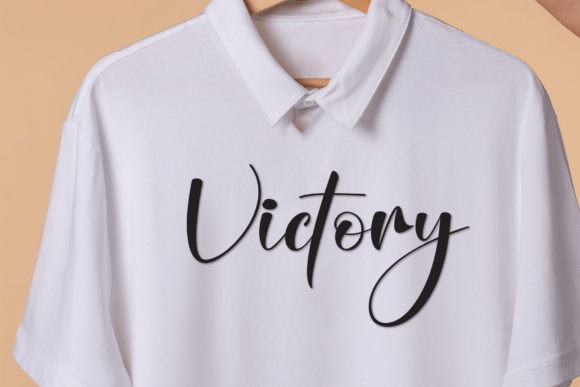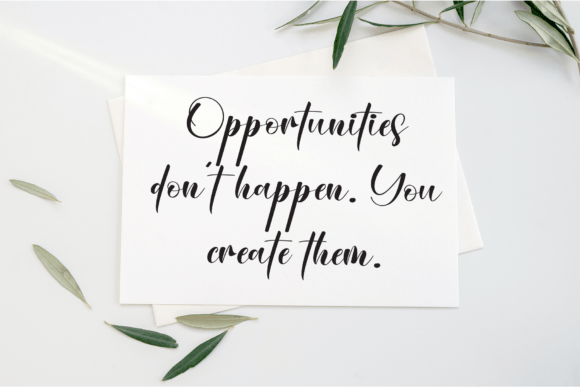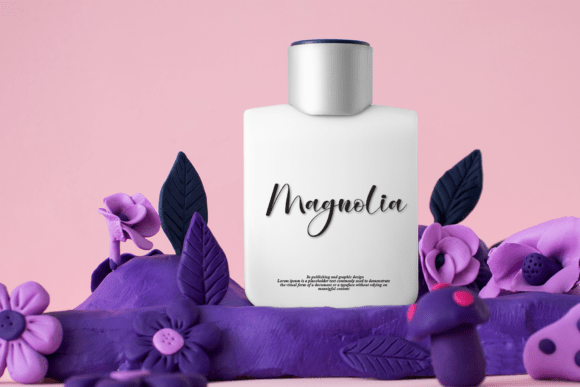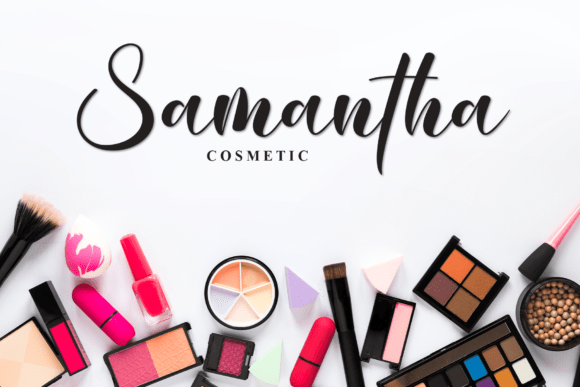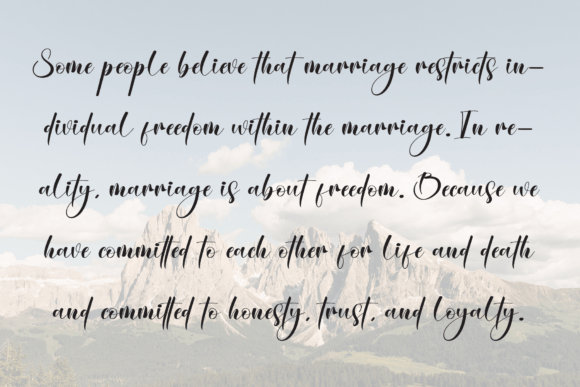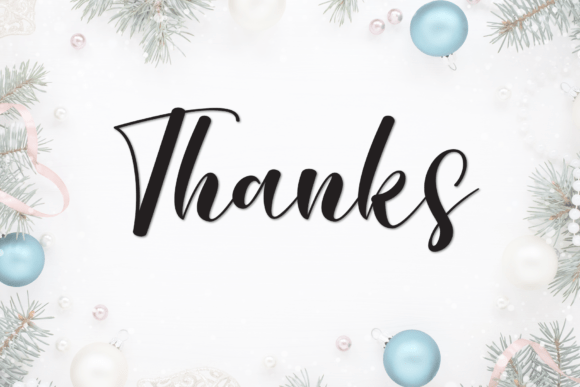
Unleash Your Creativity with the Magic of Christmas Wonderful Font
Do you ever get that spark of inspiration in the middle of a busy day, and all you can think about is bringing it to life? Maybe it’s a festive holiday project, a special gift, or a seasonal social media post. Whatever it is, you know you need the perfect font to make it truly unforgettable. That’s where the enchanting Christmas Wonderful Font comes in – a beautifully crafted script font that adds a touch of elegance to any design.
Whether you’re a seasoned designer or a DIY enthusiast, Christmas Wonderful Font is a valuable addition to your creative toolkit. Its versatility makes it perfect for a wide range of projects, from Instagram posts and social media graphics to calligraphy scripts and handmade cards. With this magical font, you’ll be able to turn your ideas into stunning pieces of art that capture the essence of the holiday season.
Christmas Wonderful Font Key Features
- Font Family: Christmas Wonderful Font is a beautiful and festive font, ideal for holiday-themed projects.
- Unique Characteristics: Features intricate, hand-drawn illustrations of snowflakes, holly, and other winter elements, adding a touch of magic to designs.
Designer Review: Christmas Wonderful Font
I recently had the chance to work with the Christmas Wonderful Font, and here’s my honest take on it.
This font is a perfect addition to any holiday-themed project. Its whimsical design and festive feel immediately evoke the magic of Christmas. The font is well-structured, with clear lines and a consistent style throughout.
- Easy to read, even in smaller font sizes
- Perfect for headings, titles, and short paragraphs
- Includes a range of punctuation and special characters
While the font is great for holiday-themed projects, it may not be suitable for more formal or professional work. Additionally, the font is only available in a limited range of weights, which may limit its versatility.
- No italic or bold weights available
- No extended character set (e.g. Cyrillic, Greek, etc.)
The Christmas Wonderful Font is a fun and festive addition to any project. While it may have some limitations, its unique design and clear structure make it a great choice for holiday-themed work. Just be aware of its limitations and use it accordingly.
Some popular use cases for the Christmas Wonderful Font include:
- Holiday greeting cards and invitations
- Festive social media graphics and posts
- Christmas party decorations and signage
- Winter-themed blog posts and articles
Remember to experiment with different font sizes, colors, and styles to get the most out of the Christmas Wonderful Font.
Alternatives to Christmas Wonderful Font
Creamy Script
Creamy Script is a beautiful, elegant script font that’s perfect for adding a touch of sophistication to your designs. It’s great for use in invitations, greeting cards, and other festive materials. Compared to Christmas Wonderful Font, Creamy Script has a more subtle, refined feel that works well in a variety of contexts.
Great Vibes is a lively, cursive script font that’s ideal for conveying a sense of joy and celebration. It’s perfect for use in social media graphics, posters, and other promotional materials. While it’s similar to Christmas Wonderful Font in terms of its festive feel, Great Vibes has a more energetic, playful vibe.
Carolyna Pro is a elegant, high-end script font that’s perfect for use in luxury branding, invitations, and other high-end materials. It has a more refined, sophisticated feel than Christmas Wonderful Font, making it ideal for use in formal or upscale contexts.